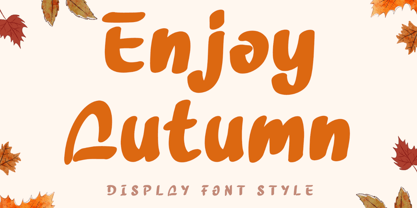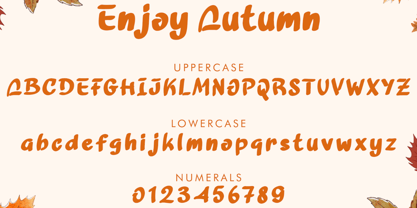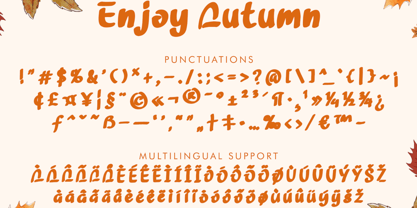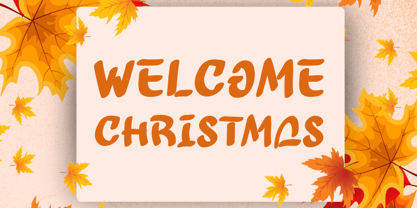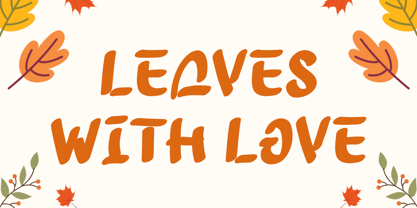
Enjoy Autumn
The Enjoy Autumn Font Family was designed by Selvia Cahya and published by Selvia Design. Enjoy Autumn contains 1 styles. More about this family
"Enjoy Autumn" is an elegant and unique display font. It features uppercase and lowercase letters, numerals, punctuation, and multilingual support. It's perfect for banners, posters, branding, stickers, posters, autumn, Halloween, Christmas, winter, spring, summer, Valentine's Day, logos, photography, holidays, t-shirts, comics, magazines, mockups, and more.